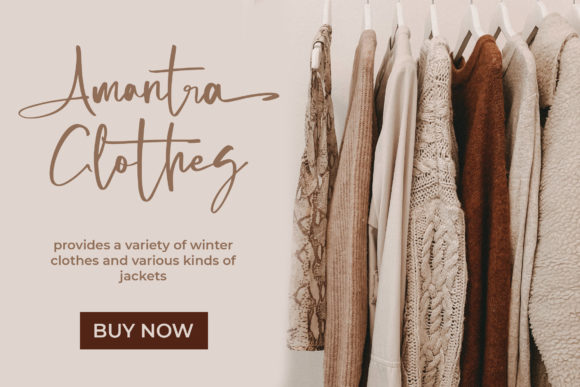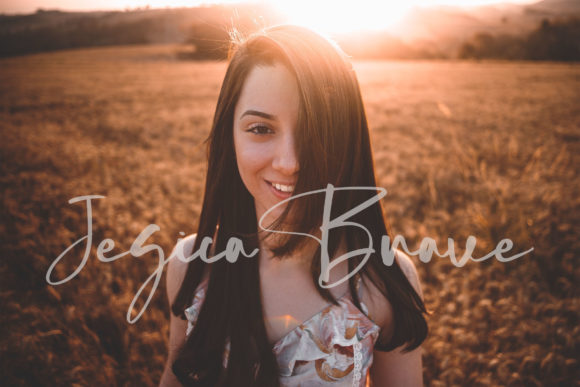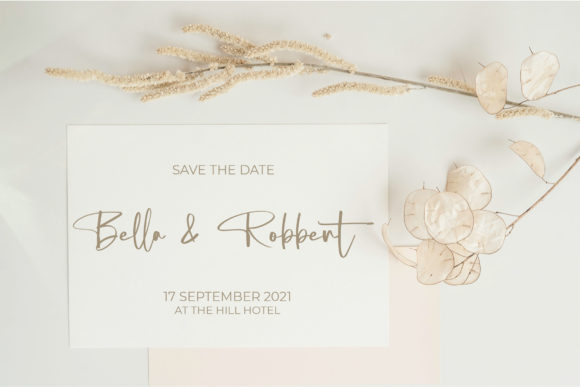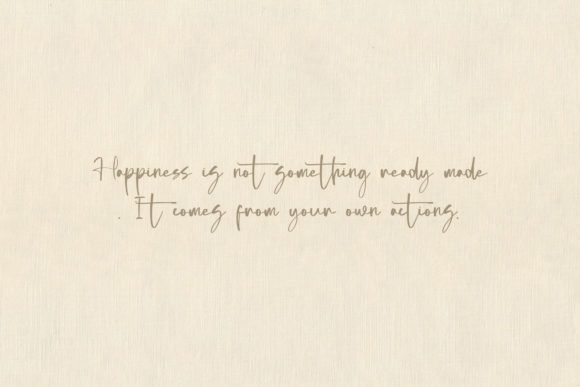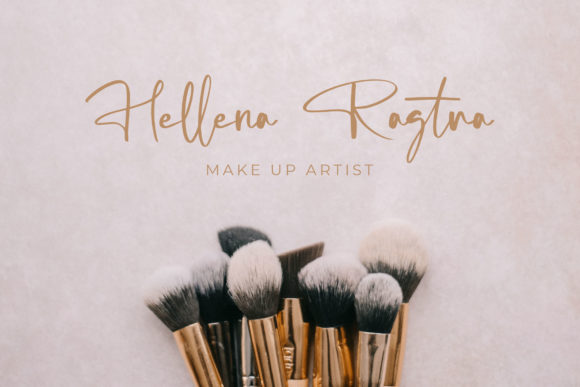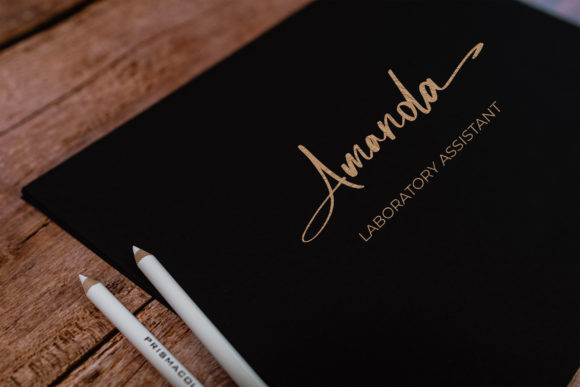
Introducing Amallicita Font: Elevate Your Designs with Luxury and Elegance
In the world of typography, fonts play a crucial role in conveying the tone and aesthetic of a design project. For designers and crafters seeking to add a touch of luxury and sophistication to their creations, the Amallicita font is an exceptional choice. This beautiful, light handwritten font boasts a unique feel and a stunning impact, making it perfect for a wide range of design applications.
What Makes Amallicita Font Stand Out?
Amallicita is not just another font; it’s a design statement. Its elegant, flowing lines and delicate curves give it a distinctive look that can instantly elevate the visual appeal of any project. Whether you’re working on a branding project, a website design, or crafting beautiful digital or print materials, Amallicita can add that extra spark of luxury and refinement.
Key Features of Amallicita Font
- Unique and Elegant Design: Amallicita’s design is both beautiful and unique, offering a fresh alternative to more traditional fonts.
- Light and Airy Feel: The font’s light nature makes it highly versatile, suitable for designs that require a subtle yet impactful typographic solution.
- High Versatility: From luxury branding to elegant stationery, and from web design to digital media, Amallicita can be used across various design projects.
The Benefits of Using Amallicita Font in Your Designs
Choosing Amallicita for your typography needs comes with several advantages:
- Enhanced Aesthetic Appeal: The font’s unique and elegant design automatically enhances the aesthetic appeal of your projects.
- Improved Readability: Despite its elegant and light feel, Amallicita maintains excellent readability, making it suitable for both headings and body text.
How to Use Amallicita Font Effectively in Your Designs
To maximize the potential of Amallicita, consider the following tips:
- Pair it with Complementary Fonts: For maximum impact, pair Amallicita with fonts that complement its elegance and lightness, creating a balanced typographic hierarchy.
- Experiment with Ligatures: Take advantage of Amallicita’s ligatures to add a creative touch to your text and make it stand out.
- Adjust Weight and Size: Play around with different weights and sizes of Amallicita to create visual interest and emphasize key elements in your design.
Amallicita font is a stunning addition to any designer’s toolkit, offering a perfect blend of elegance, uniqueness, and usability. Its light and airy feel, coupled with the extensive features provided by PUA encoding, make it an ideal choice for projects that demand a touch of luxury and sophistication. By incorporating Amallicita into your designs, you can elevate your typography, enhance the aesthetic appeal of your projects, and leave a lasting impression on your audience.
Whether you’re a professional designer or a crafting enthusiast, Amallicita is sure to inspire your creativity and help you achieve your design goals with style and elegance.